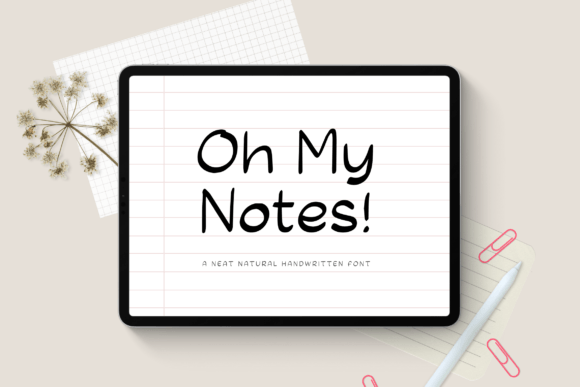
**Oh My Notes Font: The Perfect Addition to Your Digital Toolkit**
Embrace the beauty of handwritten notes with Oh My Notes Font, a captivating script font that adds a touch of personality to your digital creations. Inspired by the art of penmanship, this font exudes a natural charm that instantly elevates your designs.
Whether you're a note-taker, a digital planner enthusiast, or a creative entrepreneur, Oh My Notes Font is the perfect choice for adding a personal touch to your work. Its neat and tidy appearance makes it ideal for crafting beautiful notes, creating eye-catching product descriptions, and designing stunning headlines that grab attention.
**Unleash Your Creativity with Endless Possibilities**
With Oh My Notes Font, the possibilities are endless. Let your imagination soar as you use this versatile font to create:
* Mesmerizing logos that reflect your brand's unique identity
* Captivating branding materials that leave a lasting impression
* Engaging social media posts that stand out from the crowd
* Inviting product paragraphs that entice customers to learn more
* Creative digital planners that inspire productivity and organization
**Experience the Simplicity & Beauty of Handwritten Elegance**
Oh My Notes Font's casual handwritten style brings a touch of warmth and authenticity to your digital creations. Its natural stroke adds a human element that resonates with your audience, creating a connection that goes beyond words.
Whether you're designing for print or digital, Oh My Notes Font delivers exceptional results. Its crisp and clean lines ensure that your text remains legible, even at small sizes. Plus, its extensive character set supports multiple languages, making it a truly global font.
Step into the world of handwritten elegance with Oh My Notes Font. Discover the joy of creating designs that captivate, inspire, and leave a lasting impression.